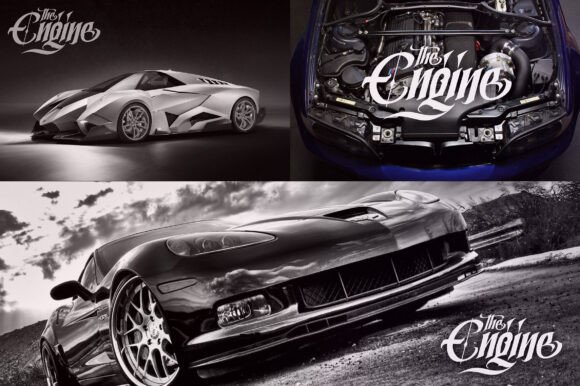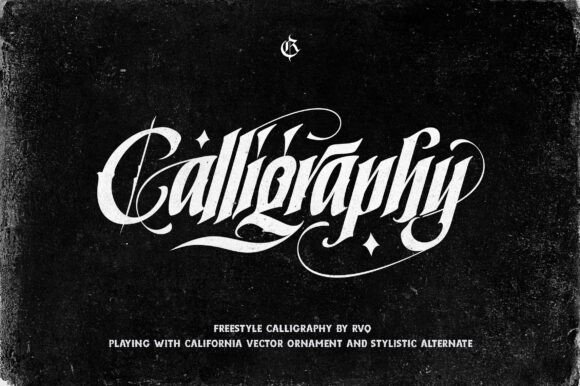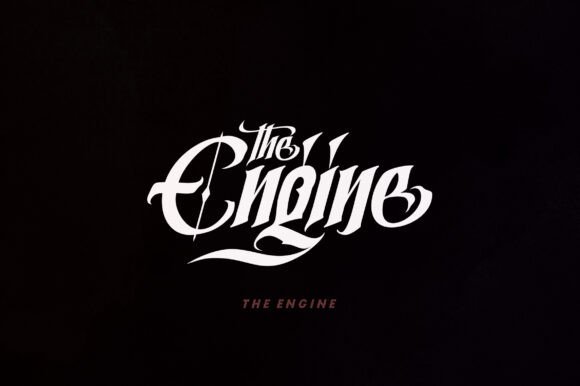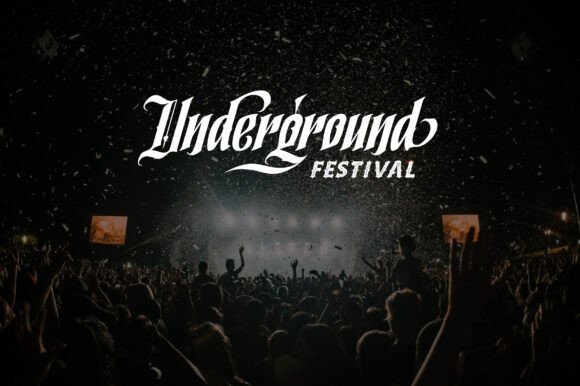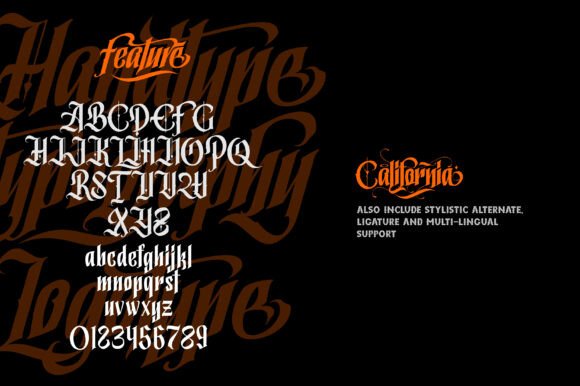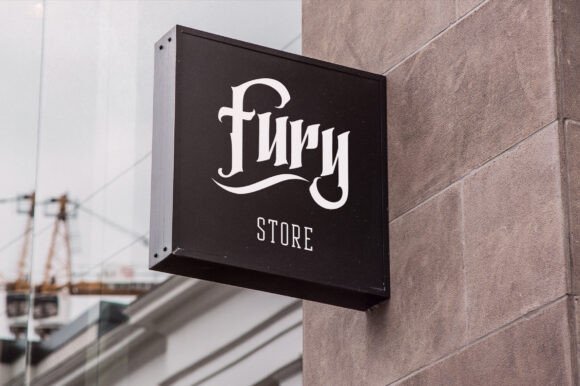
Introduction to California Style Font Font
Fonts play a crucial role in design, and the California Style Font font is a typeface that brings both character and versatility to any project. Whether you’re working on a branding project, a website, or a print design, the California Style Font font offers a unique style that can elevate your work.
California is a bold and thick lettered blackletter font.
Key Features of California Style Font Font
Why Choose California Style Font Font?
The California Style Font font is more than just a typeface – it’s a design tool that helps you communicate your message with style and clarity. Its unique character set and versatile design make it suitable for a wide range of applications, from elegant invitations to bold headlines.
With its carefully crafted letterforms and balanced proportions, the California Style Font font ensures readability and visual appeal across all mediums.
What makes California Style Font font special?
The California Style Font font stands out with its unique design, exceptional readability, and versatility across various design applications.